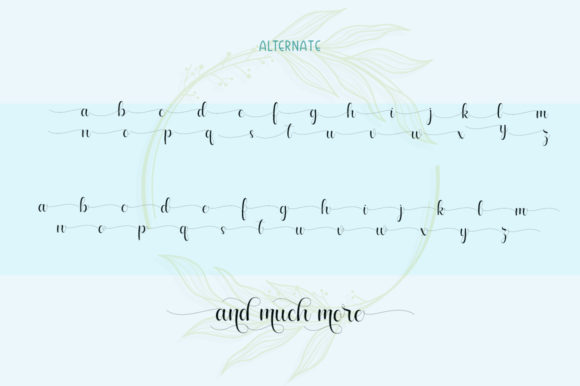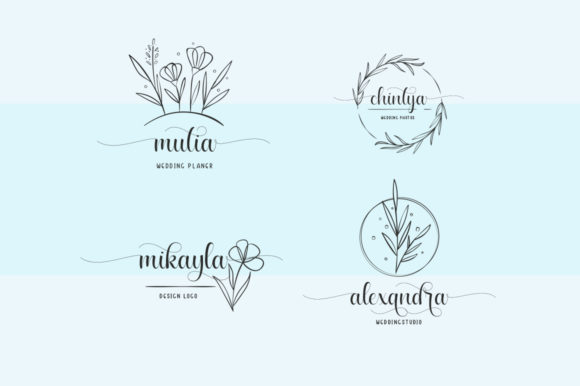
New Year New Chapter Font
db-ku.com - Script & Handwritten -- New Year New Chapter is a unique handwritten font. Use this gorgeous and unique font to bring any DIY project to life!